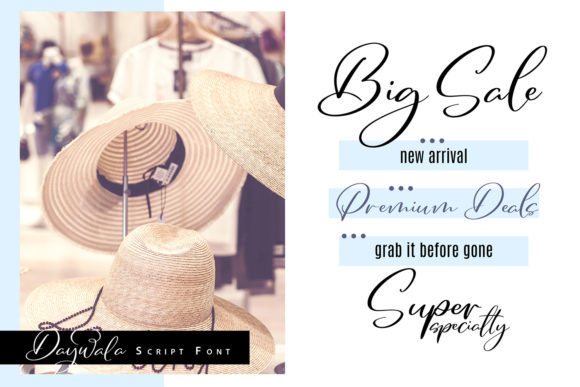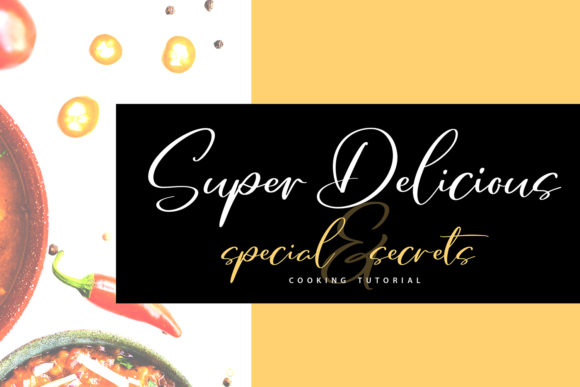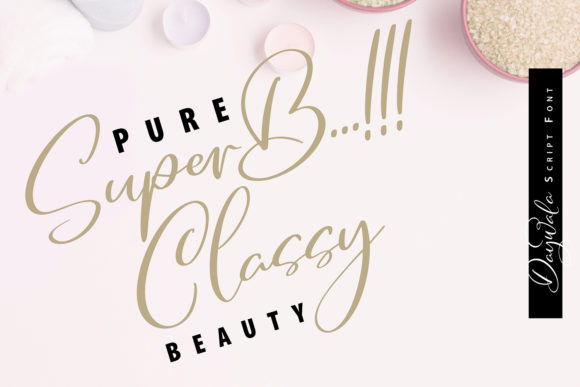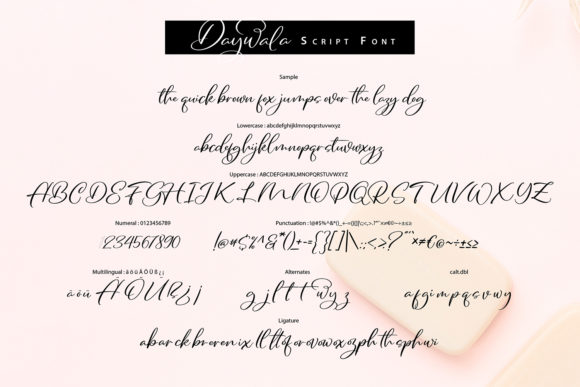
Introducing Daywala Font: Elevate Your Designs with Elegant Script
In the world of typography, a font can make or break a design. For designers and crafters looking to add a touch of sophistication and elegance to their projects, Daywala Font is an excellent choice. This beautiful script font is inspired by timeless classic calligraphy, offering a contemporary atmosphere and impeccable form that will elevate your designs to the next level.
What is Daywala Font?
Daywala is an elegant script font that strikes the perfect balance between classic and modern. Its unique design ensures that it’s not too thin and not too thick, making it versatile and varied. This font is perfect for a wide range of projects, from branding and advertising to packaging and digital media.
Key Features of Daywala Font
• PUA Encoded: Daywala Font is PUA (Private Use Area) encoded, which means you can access all the glyphs and swashes with ease. This feature allows for greater flexibility and creativity in your designs.
• Balanced and Varied: The font’s balanced design ensures that it’s neither too thin nor too thick, making it perfect for a variety of applications.
• Elegant and Sophisticated: Daywala’s elegant script style is inspired by classic calligraphy, adding a touch of sophistication to any design.
• Contemporary Atmosphere: Despite being inspired by classic calligraphy, Daywala has a contemporary atmosphere that will make your designs stand out.
Why Choose Daywala Font?
With so many fonts available, why choose Daywala? Here are a few reasons:
• Unique Design: Daywala’s unique design sets it apart from other script fonts, making it perfect for designers looking to create something distinctive.
• Versatility: The font’s balanced design and varied styles make it suitable for a wide range of projects, from elegant branding to creative packaging.
• Easy to Use: Daywala’s PUA encoding makes it easy to access all the glyphs and swashes, allowing you to focus on creating stunning designs.
Use Cases for Daywala Font
Daywala Font is perfect for a variety of design projects, including:
• Branding and Logo Design: Create a lasting impression with elegant and sophisticated branding.
• Advertising and Marketing: Stand out in a crowded market with eye-catching ads and promotional materials.
• Packaging Design: Add a touch of luxury to your product packaging with Daywala’s elegant script style.
• Digital Media: Use Daywala to create stunning digital content, such as social media graphics, blog posts, and more.
Tips for Using Daywala Font
To get the most out of Daywala Font, here are a few tips:
• Experiment with Swashes: Daywala’s PUA encoding allows for easy access to swashes and glyphs. Experiment with different combinations to create unique designs.
• Mix and Match: Combine Daywala with other fonts to create interesting and dynamic designs.
• Pay Attention to Kerning: Make sure to adjust the kerning to ensure that your text looks balanced and visually appealing.